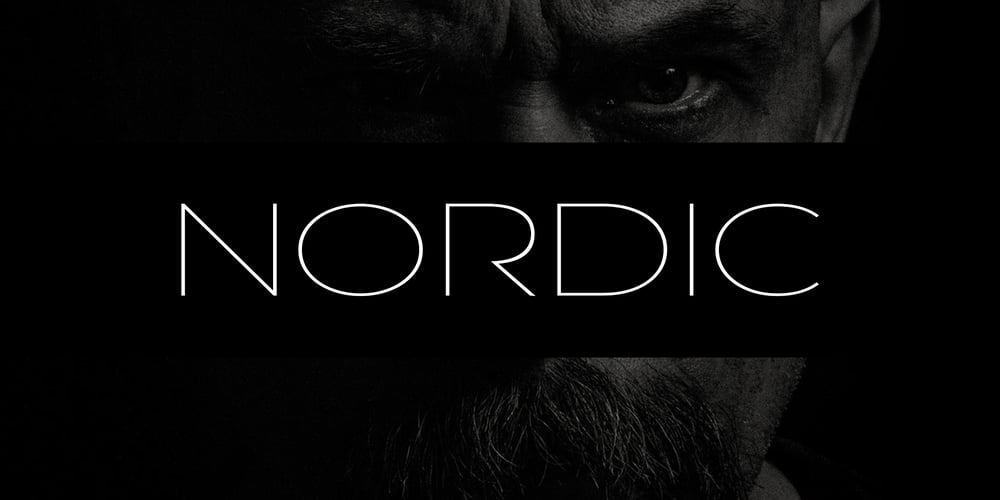
Vista Nordic Font Family was designed by Alwin Johnson and published by VistaType. Vista Nordic contains 18 styles and family package options. Vista Nordic is a minimal and Modern font family. Made for text display purposes, Nordic brings a contemporary and Robust appearance to your design projects with a bold style, making this font suitable as the Prior heading and common text on a website or layout design. The Nordic family includes 18 fonts in a variety of weights and types. 18 fonts 2 font styles Upper / lowercase glyphs Multilingual Webfonts included Free updates and feature additions If you have any questions about licensing, need help with a typeface, or would like to request a new feature, contact us at hello@vistatype.com. Thank you!